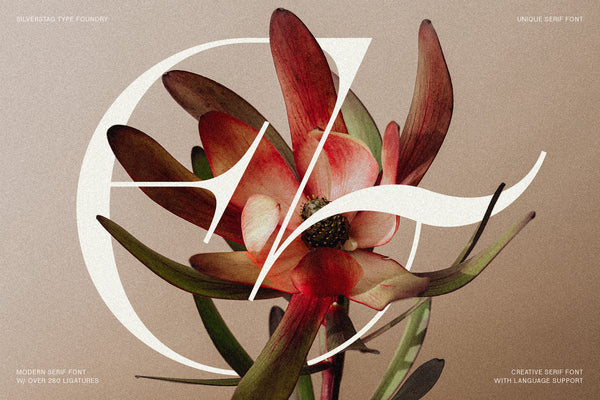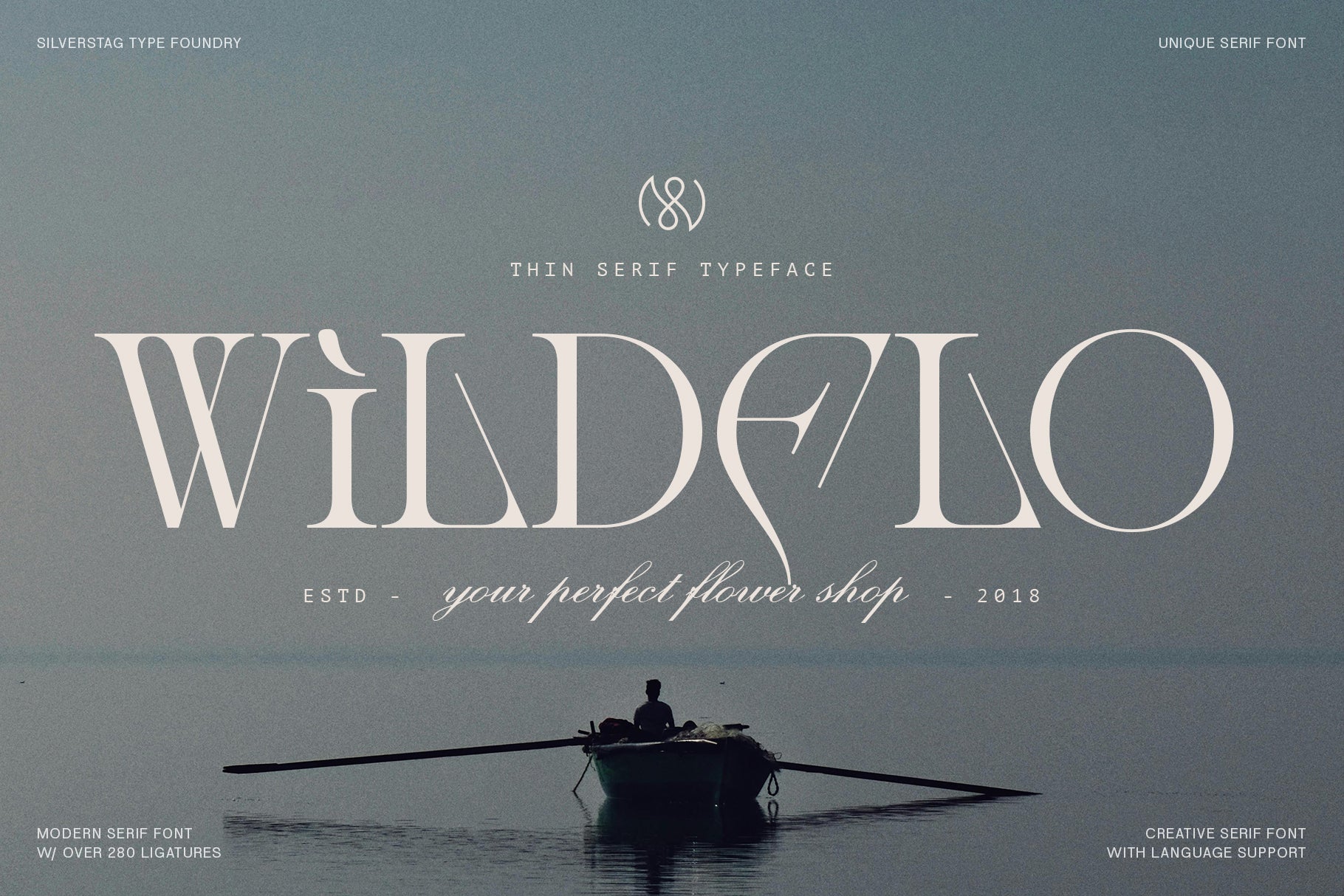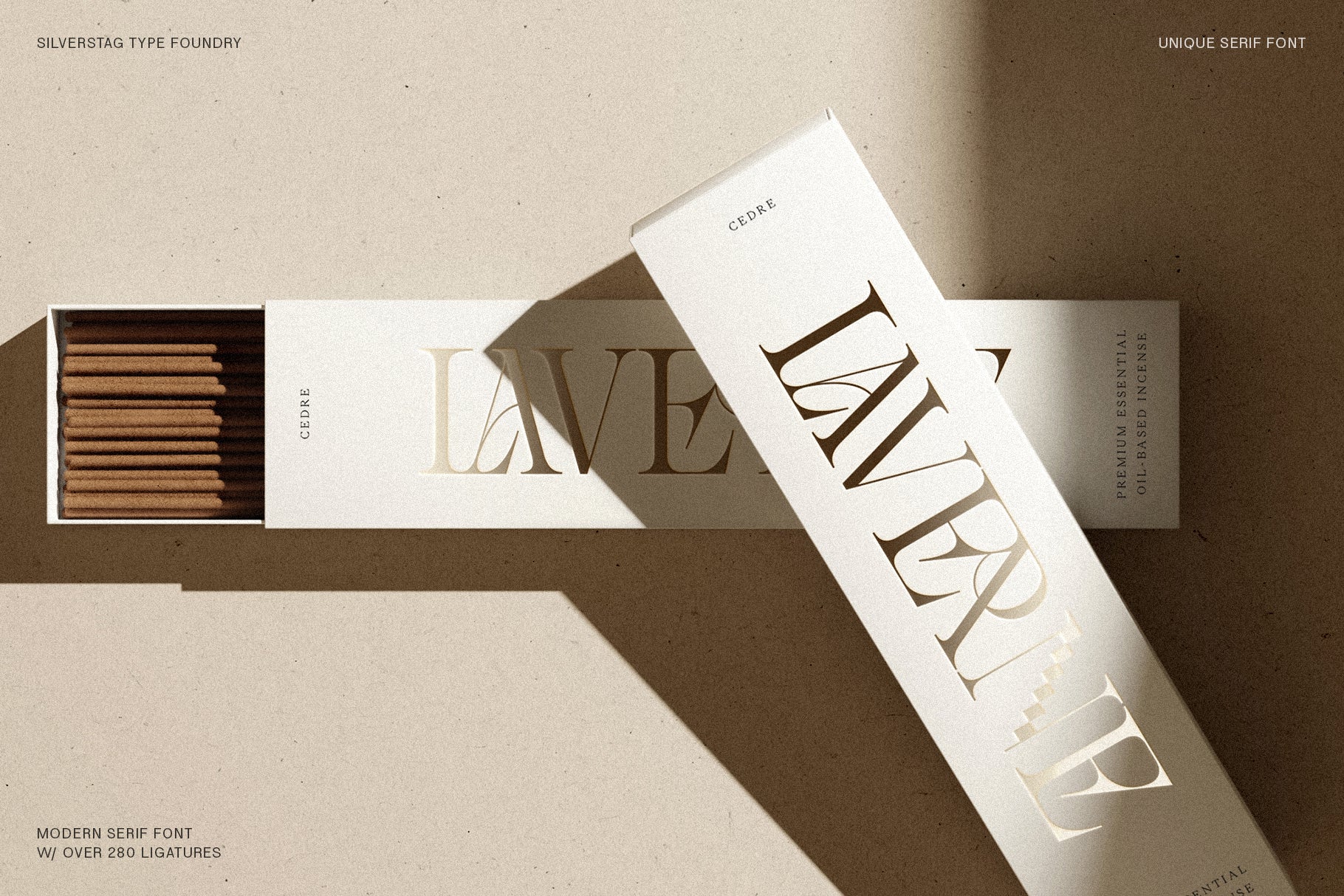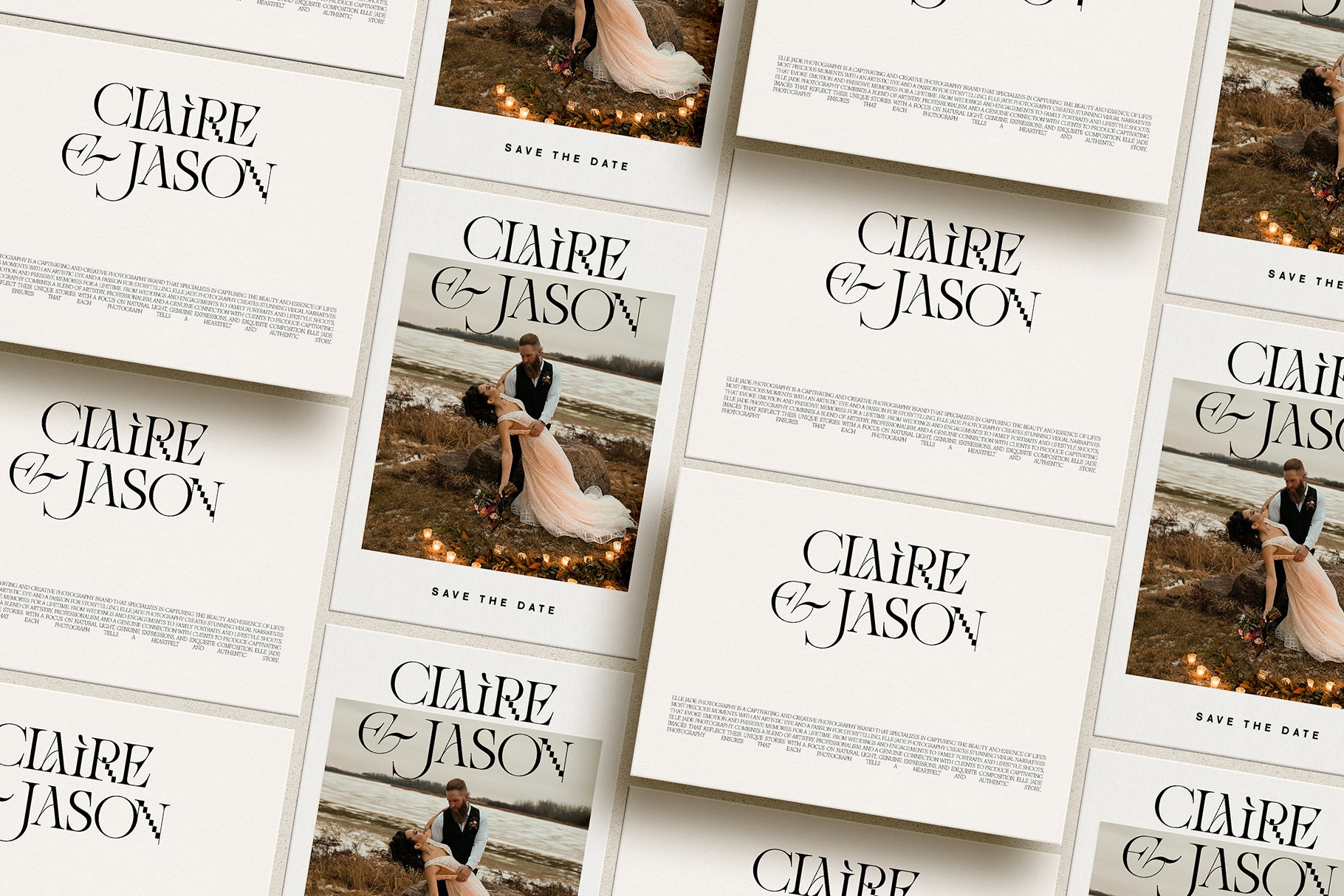
Amelie Fierce - Display Serif Font
Amelie Fierce is a bold and elegant display serif font designed to challenge convention and spark creativity. With over 280 ligatures, sharp contrast, and pixel-inspired accents, this typeface brings together high-fashion sophistication and digital rebellion in one unforgettable form.
Graceful curves meet sleek serifs and edgy letterform details, making Amelie Fierce the perfect choice for standout branding, luxury editorials, stylish social media content, and bold packaging. It’s designed to captivate attention—while still exuding timeless class.
The pixelated elements add a unique flair to selected characters, offering visual interest and an unexpected twist to your typography. Whether you’re crafting book covers, modern invitations, campaign headlines, or fashion-forward branding, Amelie Fierce delivers both beauty and attitude.
With support for 90+ languages, it’s ready to elevate design work across borders and industries.